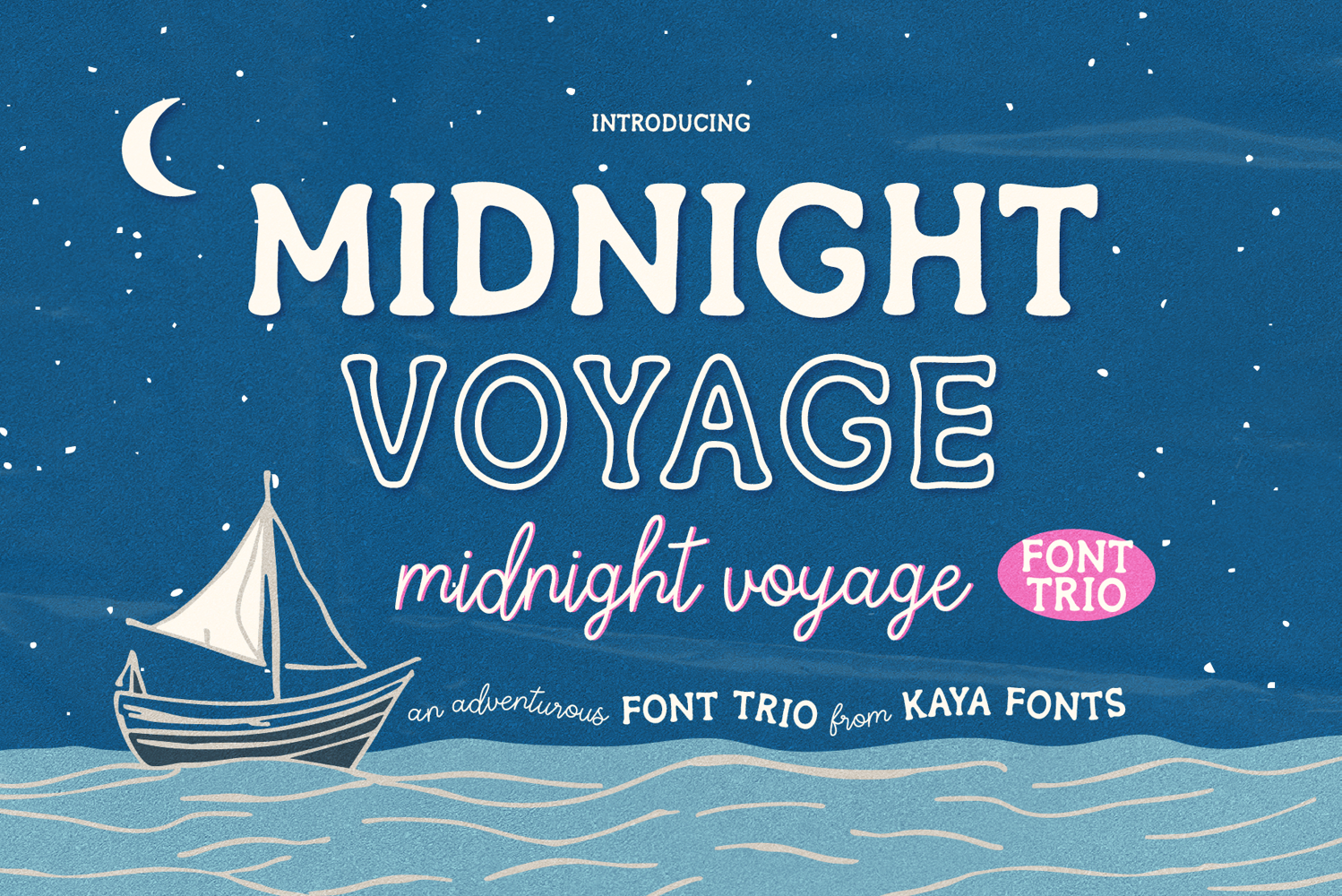
Midnight Voyage Nature Inspired Adventure Font Trio
Midnight Voyage is an adventurous, hand-drawn font trio inspired by moonlit sails, calm seas, and nostalgic summer postcards. With a bold, friendly display style, a playful outline version for easy layering, and a sweet handwritten script for accents, Midnight Voyage is made to bring instant charm to your designs.
Whether you're working on logos, packaging, posters, invitations, or brand identity projects, Midnight Voyage helps your work stand out with effortless flair. With a combination of bold serif, outlined display, and flowing script styles, this set offers flexibility and harmony—perfect for creating layered, eye-catching typography.
• Adventure & travel branding
• Nautical themed designs
• Apparel & t-shirt graphics
• Greeting cards & stationery
• Social media posts & Pinterest graphics